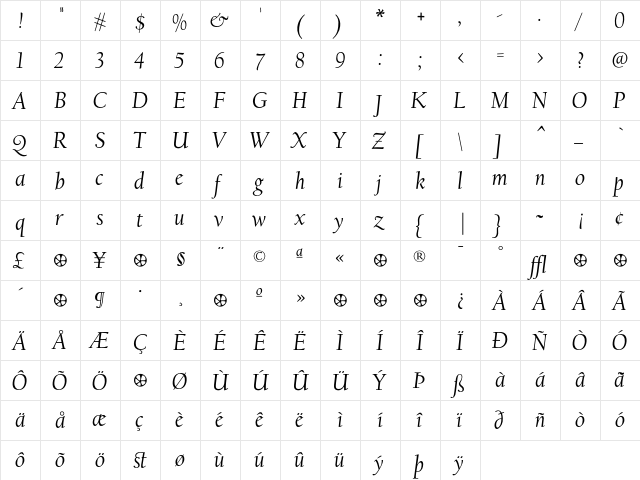
FBCalifornian Italic
Design Context for FBCalifornian Typeface
FBCalifornian offers clean, dependable letterforms without strong stylistic allegiance, making it a practical choice for designers who need flexibility. The dynamic lean of this cut emphasises speed and emphasis in any layout.
Pro Tip: Use FBCalifornian for emphasis, pull quotes, and subheadings where its slanted energy can add rhythm to the layout.